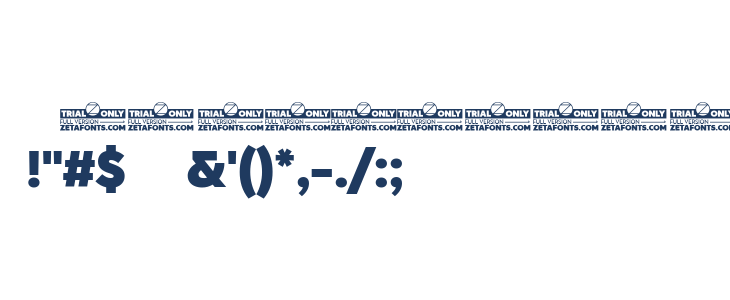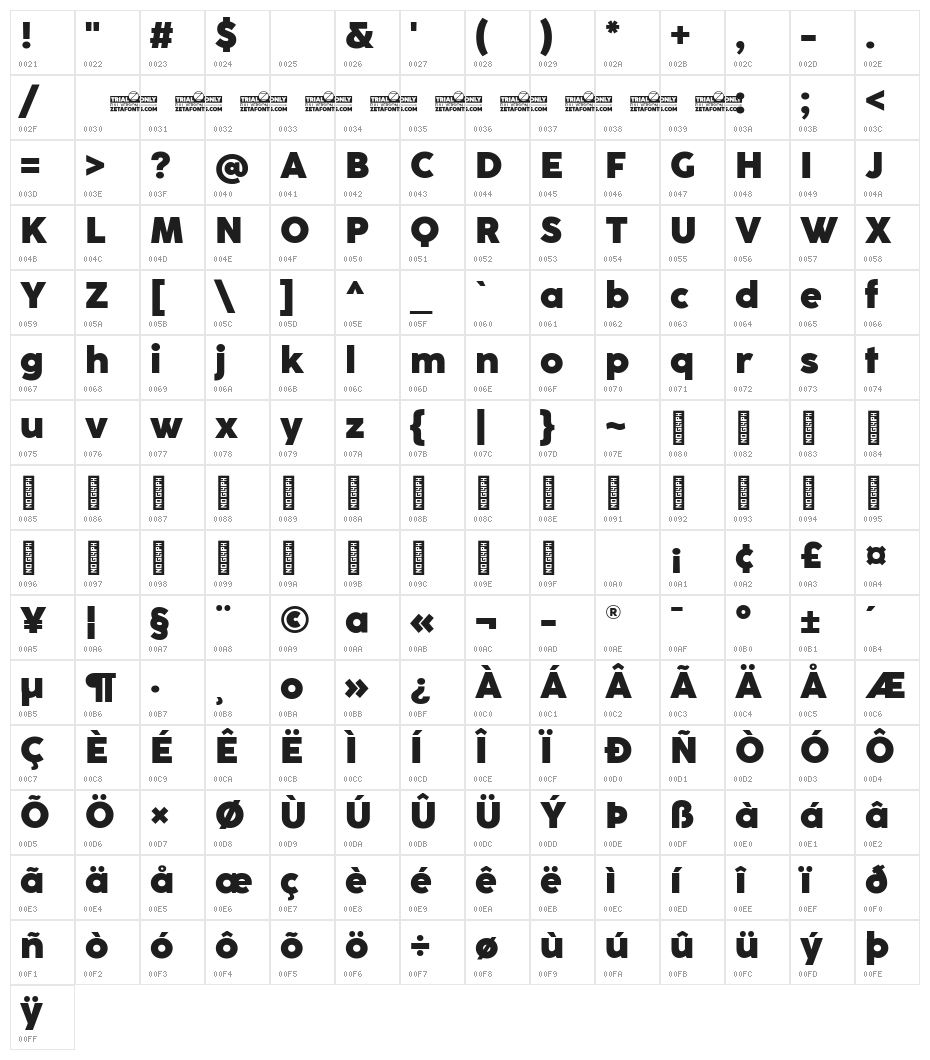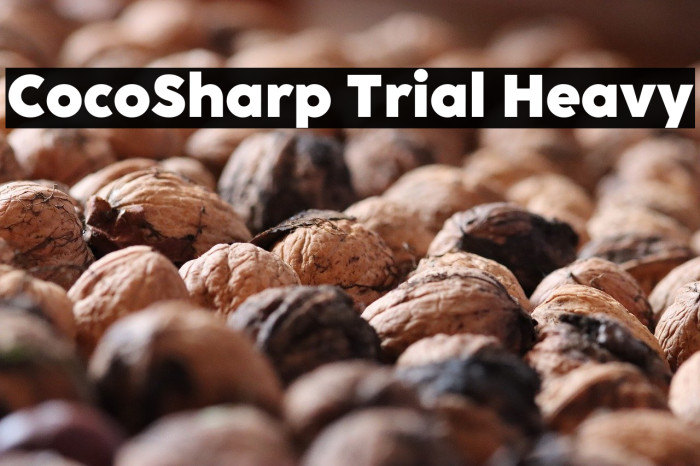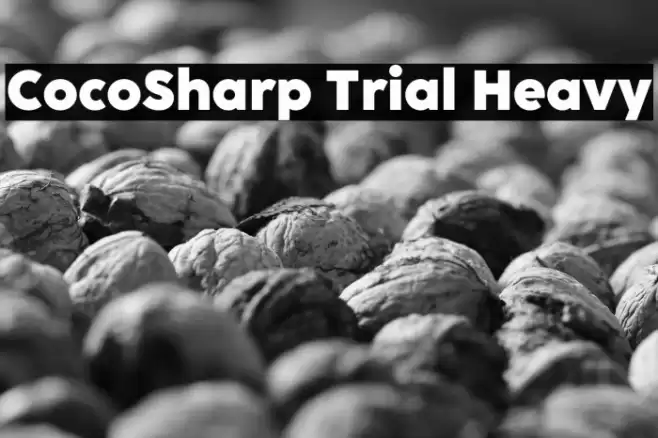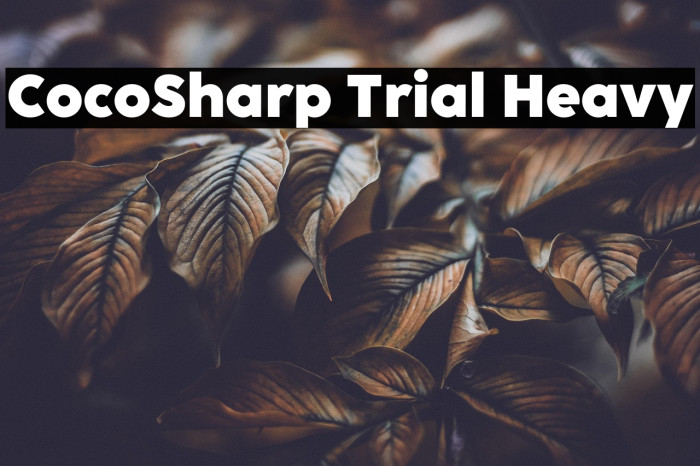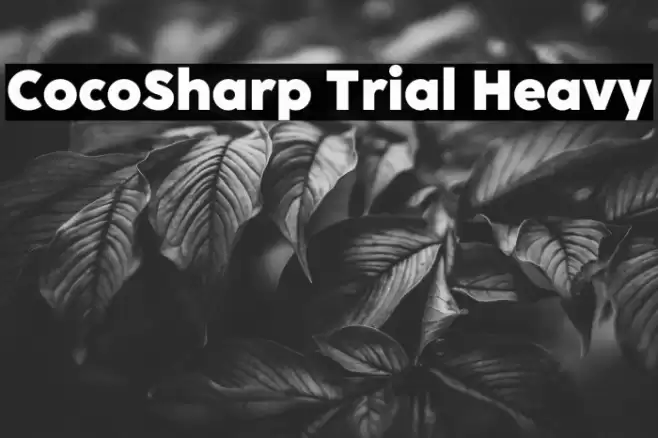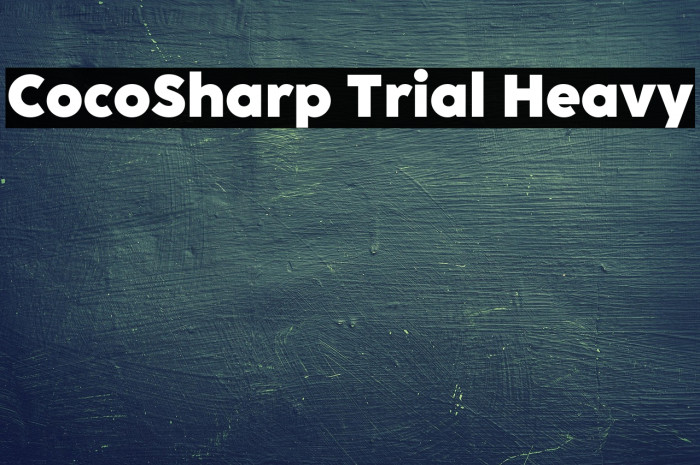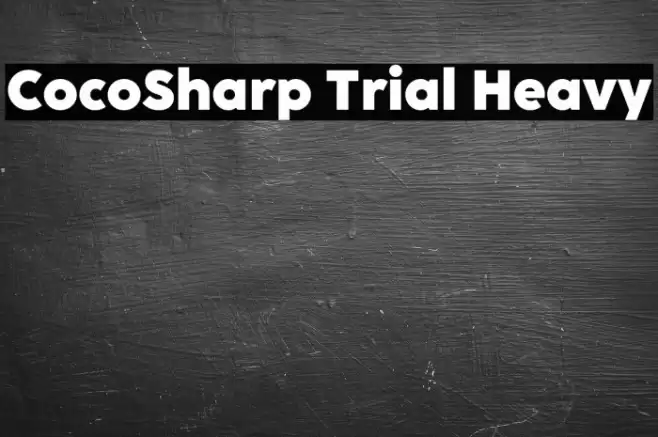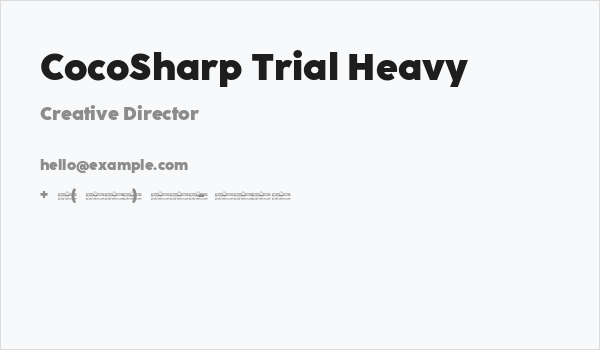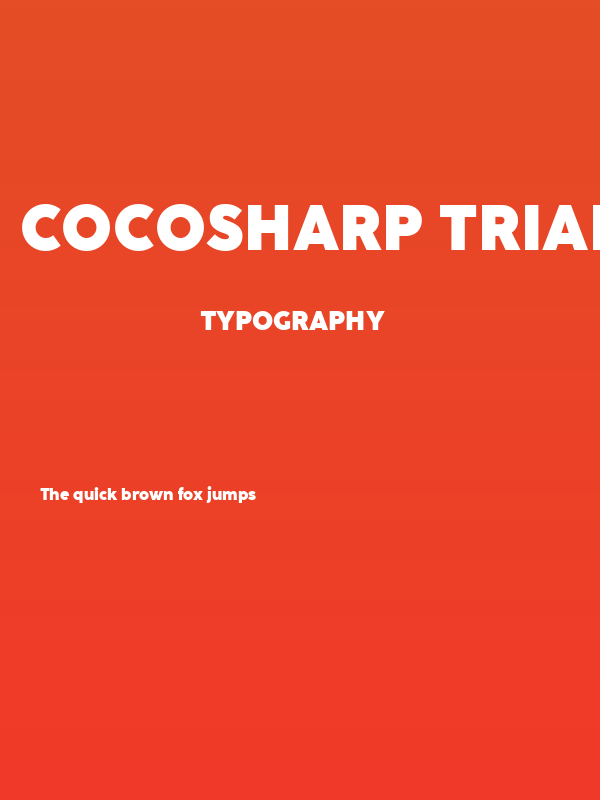
CocoSharp Trial Heavy Font
CocoSharp Trial Heavy Description
This font exhibits a bold and strong presence with its heavy weight and sans-serif style. The characters are uniformly thick, providing a modern and impactful look. The uppercase and lowercase letters maintain a consistent width, contributing to a cohesive appearance. The font's geometric shapes and clean lines make it suitable for contemporary designs. The special characters are well-integrated, matching the overall bold aesthetic. This font is versatile, offering clarity and readability while maintaining a stylish edge.
| Proposed Projects | Ideal for branding, headlines, posters, and digital media where a strong visual impact is desired. |